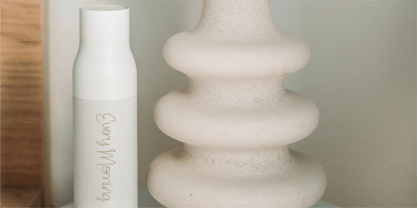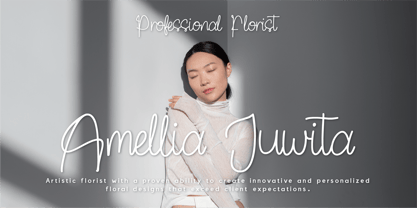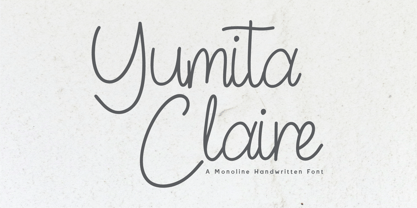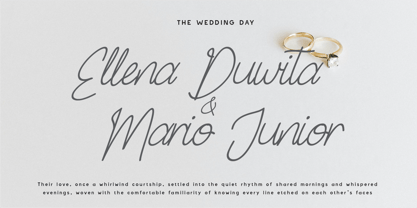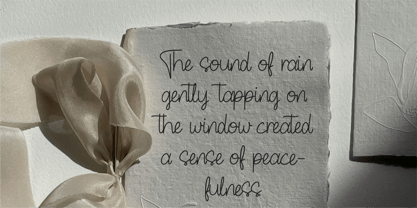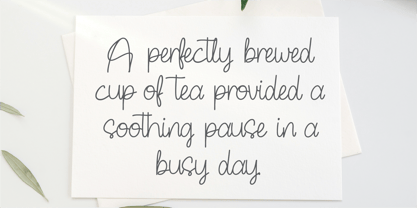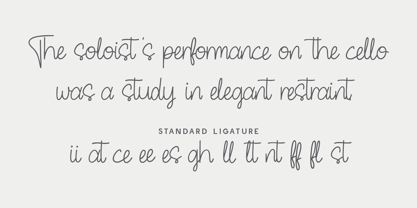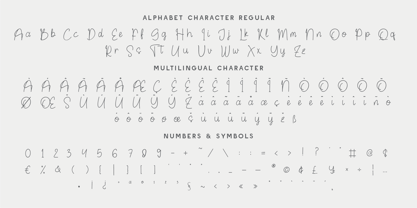
Yumita Claire – A Chic & Elegant Monoline Handwritten Font
Meet Yumita Claire, a sophisticated monoline handwritten font that captures the essence of modern minimalism and refined elegance. With its fluid, single-line strokes and delicate curves, this typeface embodies simplicity, class, and effortless beauty.
Perfect for branding, fashion labels, wedding stationery, social media, and signature logos, Yumita Claire offers a lightweight yet stylish aesthetic that enhances any project. Whether you're designing for high-end brands or personal projects, this font adds a touch of sophistication and authenticity.
Why Choose Yumita Claire?
✨ Minimalist & Elegant: A refined monoline script with graceful movement.
🎀 Perfect for Chic Branding: Ideal for fashion, beauty, and lifestyle projects.
🖋 Authentic Handwritten Feel: Designed to replicate effortless handwriting.
🌍 Versatile & Readable: A stylish yet clear typeface for various creative uses.
- Standard Character A-Z, a-z, 0-9, Punctuation & symbols
- Regular and Italic